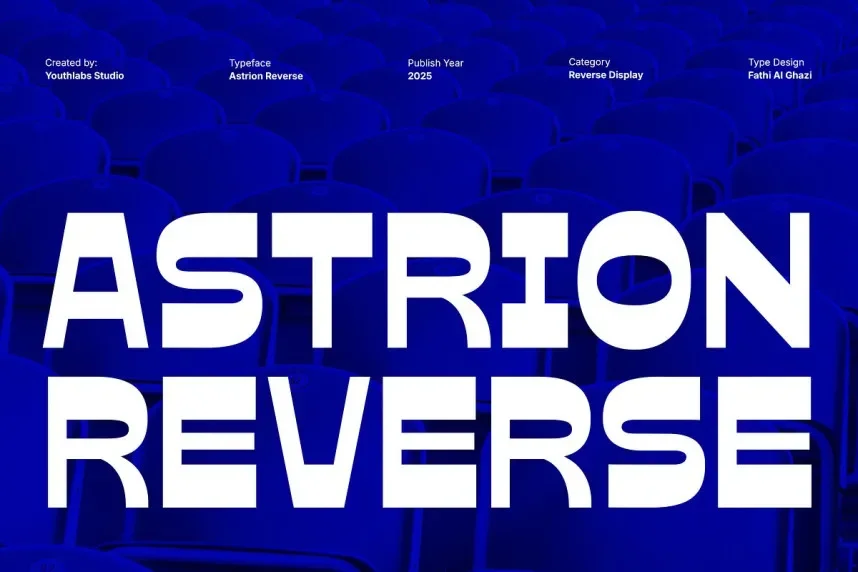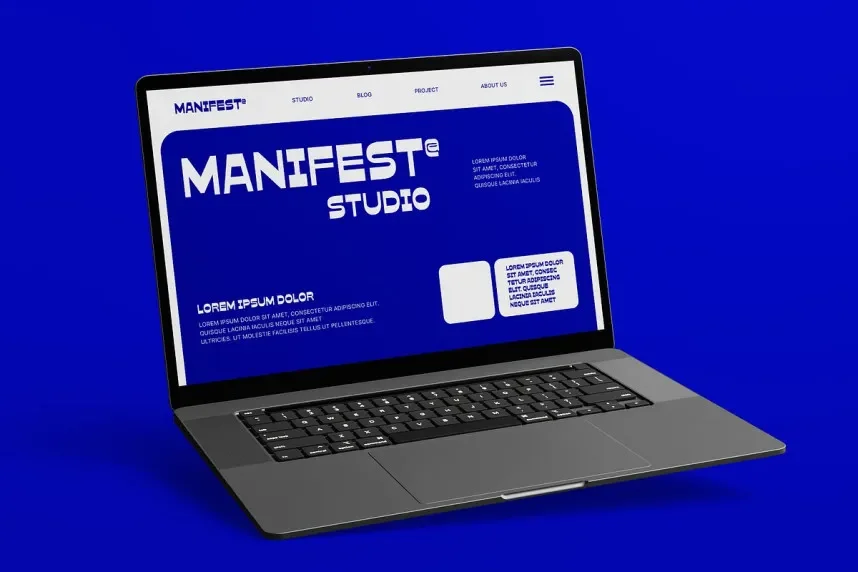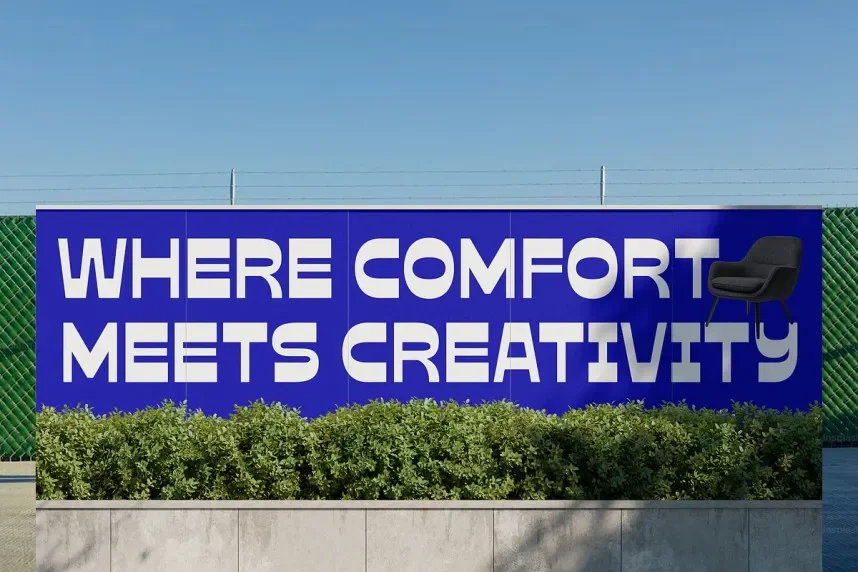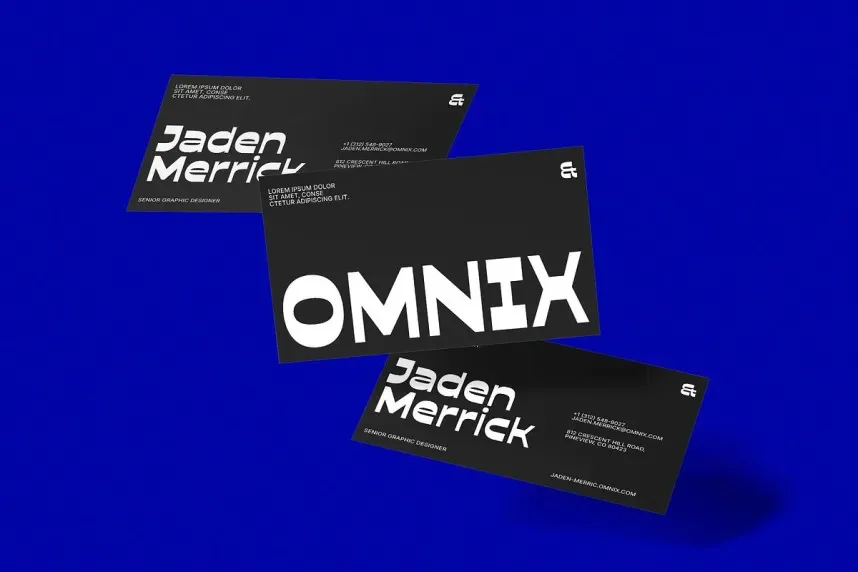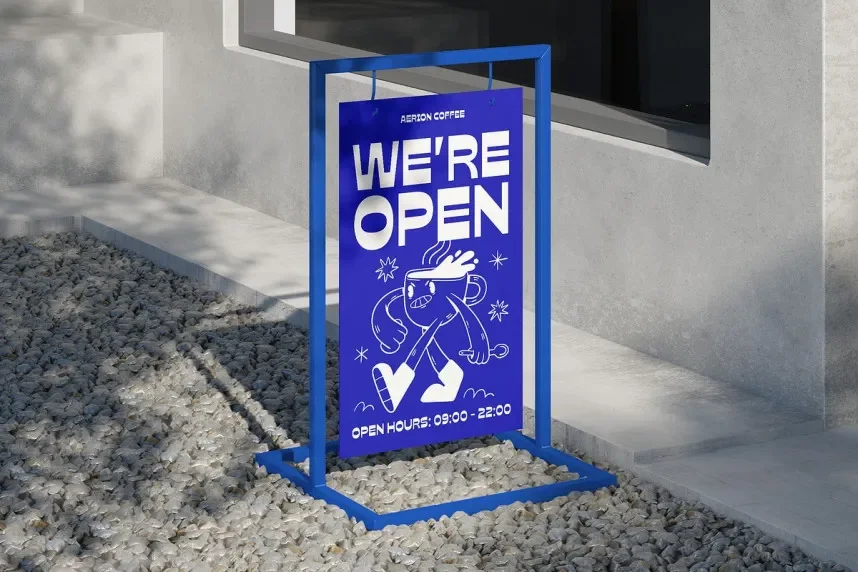
Astrion Reverse Font is a display typeface created to solve layout challenges where standard letterforms lack visual contrast. Designers often need reversed or inverted shapes for branding, posters, and UI visuals that must stand out while remaining readable in controlled, large-size applications.
Astrion Reverse uses bold letter structures with negative-space detailing that creates a reversed visual effect. The font relies on thick strokes, sharp angles, and consistent spacing to keep characters recognizable. It is designed mainly for short text, where clarity comes from scale rather than continuous reading. The typeface supports basic Latin characters, numerals, and punctuation for headline use.